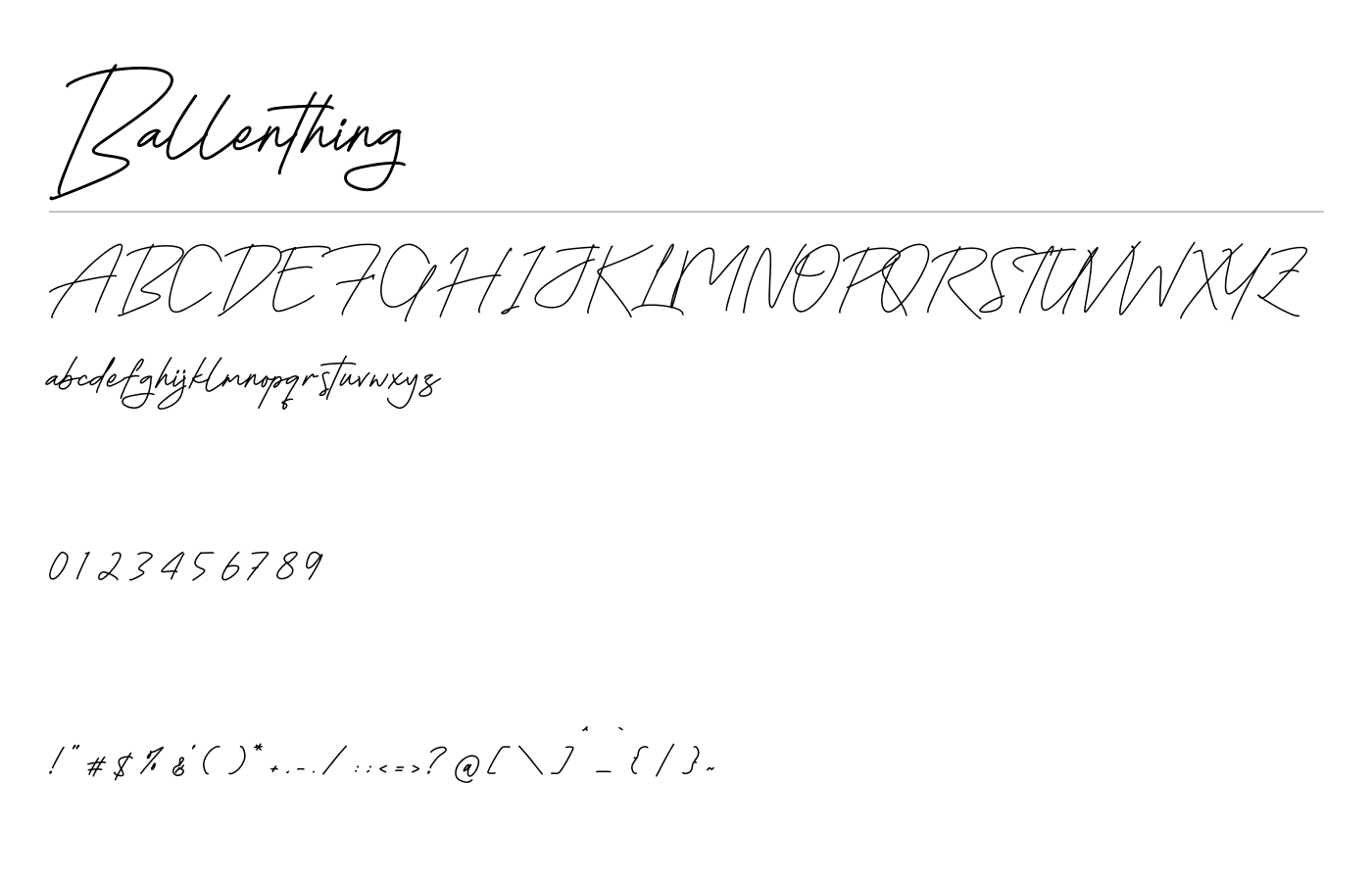
Ballenthing is a delicate, hand-drawn script font that features thin, flowing strokes with a natural, casual elegance. Its tall, narrow letterforms and fine lines create a light, airy feel perfect for adding a personal, sophisticated touch to invitations, branding, and editorial designs. This font works well in creative projects where a chic yet approachable handwritten style is desired.
Ballenthing Font
About Ballenthing Font